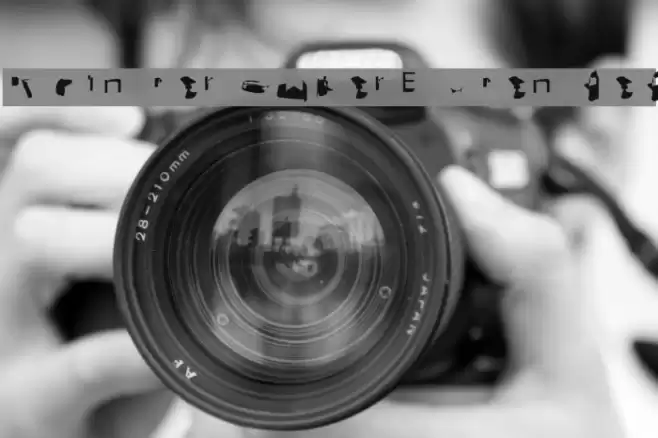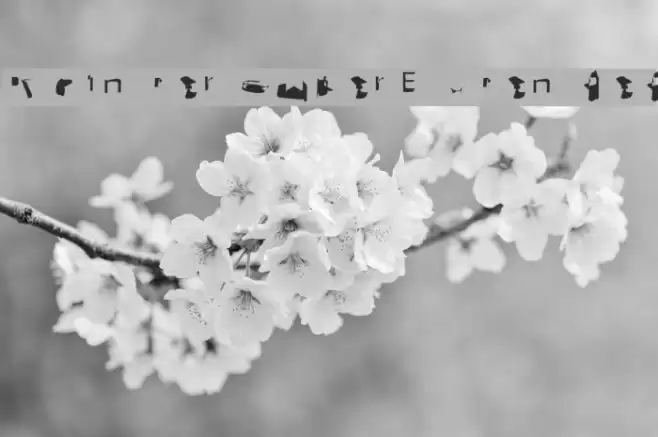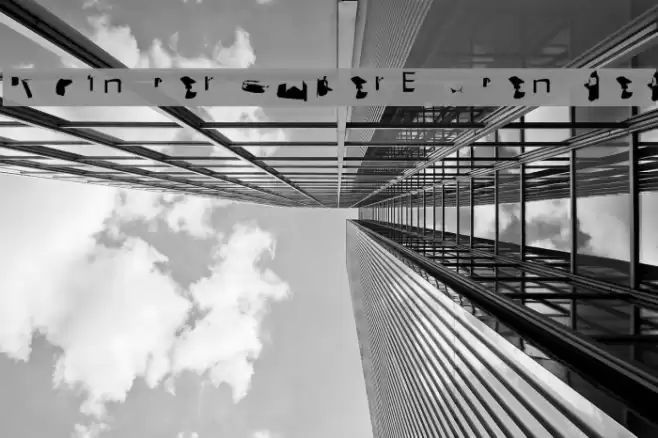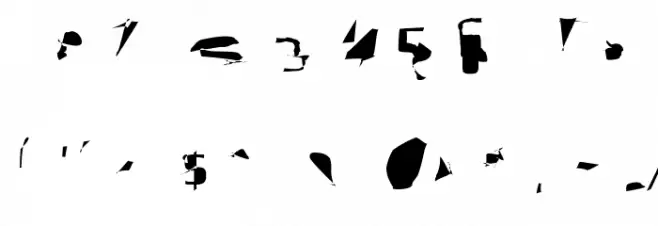
Pointer SuperExtended Font
Pointer SuperExtended Description
This font exhibits a highly abstract and fragmented design, where each character appears to be deconstructed into sharp, angular pieces. The overall appearance is chaotic yet intriguing, with a sense of movement and energy. The characters are barely recognizable, making it a unique choice for artistic and experimental projects. The font's style challenges traditional readability, focusing instead on visual impact and artistic expression. It is not suitable for body text but can be used effectively in contexts where the visual form is prioritized over legibility.
An abstract, fragmented font with sharp, angular designs for artistic use from Uncategorized fonts.
- Proposed Projects: Ideal for experimental art projects, abstract posters, avant-garde designs, and unique branding elements.
- Overall Style: Abstract, Experimental
- Use Case: Artistic displays, Experimental designs